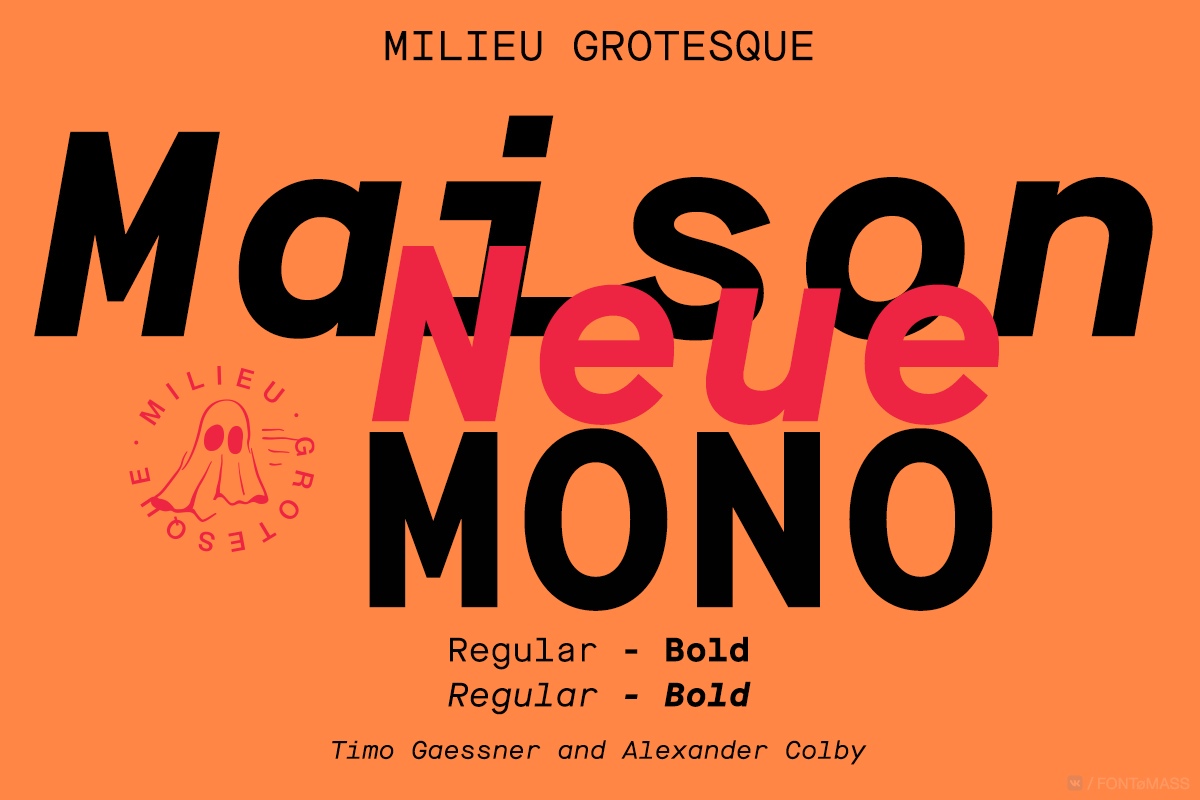
Maison Neue Mono Font
Maison Neue Mono Font is perfect for coding interfaces, technical documentation, programming tutorials, developer branding, software company identities, digital product design, command line applications, tech conference materials, and modern terminal environments.
What makes Maison Neue Mono Font exciting is its perfect balance of technical precision and contemporary aesthetics that transforms traditional monospace typography into a sophisticated design tool. The font's carefully optimized character width and exceptional legibility deliver superior coding performance while maintaining distinctive visual personality, making it the premier choice for developers and tech companies seeking to elevate their brand presence beyond typical programmer fonts.
Maison Neue Mono Font family includes multiple weights from Light to Bold, along with italic variations and specialized coding ligatures, providing comprehensive solutions for both functional programming environments and stylish tech branding applications across diverse digital platforms.
The meticulously engineered character alignment ensures perfect code formatting while reducing eye strain during extended programming sessions. Advanced OpenType features include programming-specific ligatures that improve code readability.
Maison Neue Mono Font distinguishes itself through its unique ability to serve both functional and aesthetic purposes simultaneously. This exceptional typeface proves that monospace fonts can achieve design sophistication without compromising the technical requirements that make them essential tools for modern software development and digital creation workflows.